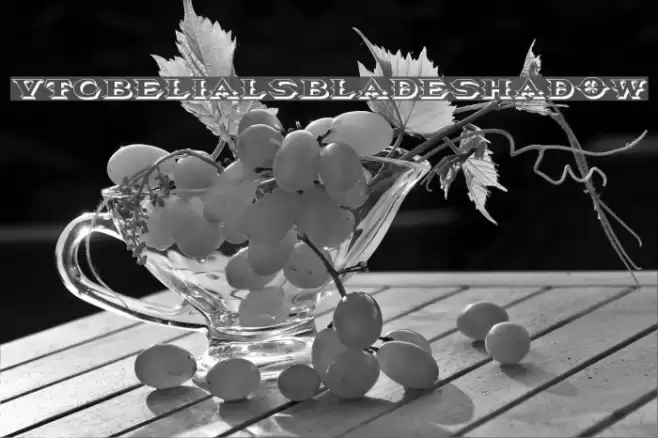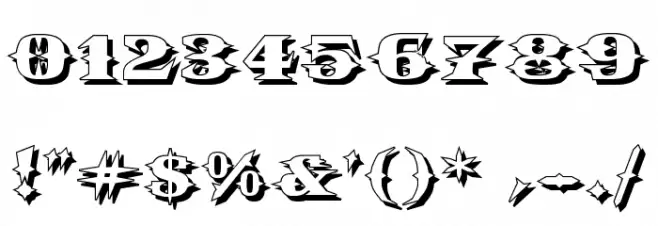
VTCBelialsBladeShadow Font
VTCBelialsBladeShadow Description
This font features a bold, dramatic style with sharp, angular edges and a shadow effect that gives it a three-dimensional appearance. The characters are highly decorative, with intricate details that add a sense of complexity and flair. The uppercase and lowercase letters maintain a consistent design, with the uppercase letters being slightly more pronounced. The numbers and special characters follow the same stylistic approach, ensuring a cohesive look across all elements. This font is well-suited for projects that require a strong visual impact and a touch of gothic or medieval influence.
A bold, decorative font with sharp angles and a shadow effect, ideal for dramatic designs from Uncategorized fonts.
- Proposed Projects: Perfect for use in posters, album covers, video game titles, and any project needing a gothic or medieval aesthetic.